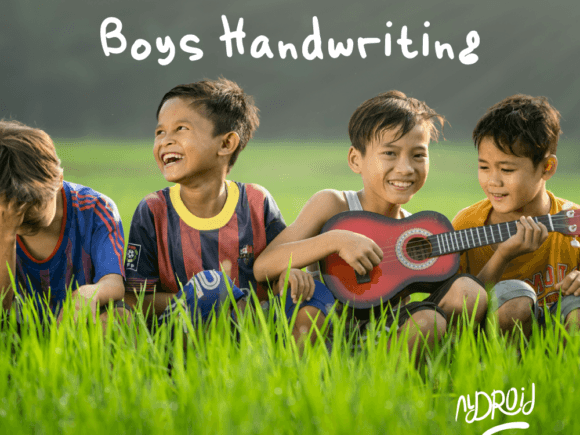
The Joy of Handwritten Touch
As a designer, there’s something magical about adding a personal touch to a project. It’s that moment when a client’s eyes light up, and they exclaim, “This is exactly what I had in mind!” That feeling is exactly what inspired us to explore the wonderful world of handwriting fonts. Among them, one stands out for its playful charm: the Boys Handwriting Font.
This delightful font captures the essence of neat, casual handwriting, perfect for adding a friendly vibe to projects like greeting cards, posters, or kids’ activities. With its easy-to-read letters, it’s no wonder designers love incorporating Boys Handwriting Font into their work. Whether you’re creating a whimsical design or a heartfelt message, this font is sure to bring a smile to your audience’s faces.
Key Features of Boys Handwriting Font
- Unique Characteristics: Simulates handwritten text, playful and cursive style, perfect for children’s materials, educational purposes, and creative projects
- Font Style: Casual, handwritten, cursive, and script font
- Language Support: Multilingual support, including Latin, Cyrillic, and Greek alphabets
Designer Review: Boys Handwriting Font
Overall, I think the Boys Handwriting Font has its charm ✨. The font is designed to mimic the handwriting of a young boy, making it perfect for designs targeting a younger audience or those with a playful vibe. The font’s imperfections and quirks add to its authenticity and give it a lot of character. It’s a great choice for titles, headings, and short paragraphs where a more casual tone is desired.
However, there are a few limitations to consider ⚠️:
- The font may not be suitable for large blocks of text due to its irregularities and inconsistencies.
- The font’s readability can be affected by its size and spacing, making it essential to test it thoroughly in different contexts.
- The font’s uniqueness can also be a drawback, as some users may find it distracting or hard to read.
Overall, I would recommend the Boys Handwriting Font for projects where a playful, casual tone is desired. While it may not be the best choice for every project, it can add a lot of personality to your designs ✨.
The Boys Handwriting Font is perfect for creating a playful and informal look for:
– Children’s books and educational materials
– Personalized gift tags and cards
– Social media graphics and advertisements
– Branding and marketing materials with a fun and youthful tone.
To get the most out of the Boys Handwriting Font, try:
– Combining it with other playful fonts for a unique look
– Adjusting the font size and color to match your brand or design style
– Using it for headings and titles to add emphasis and visual interest.